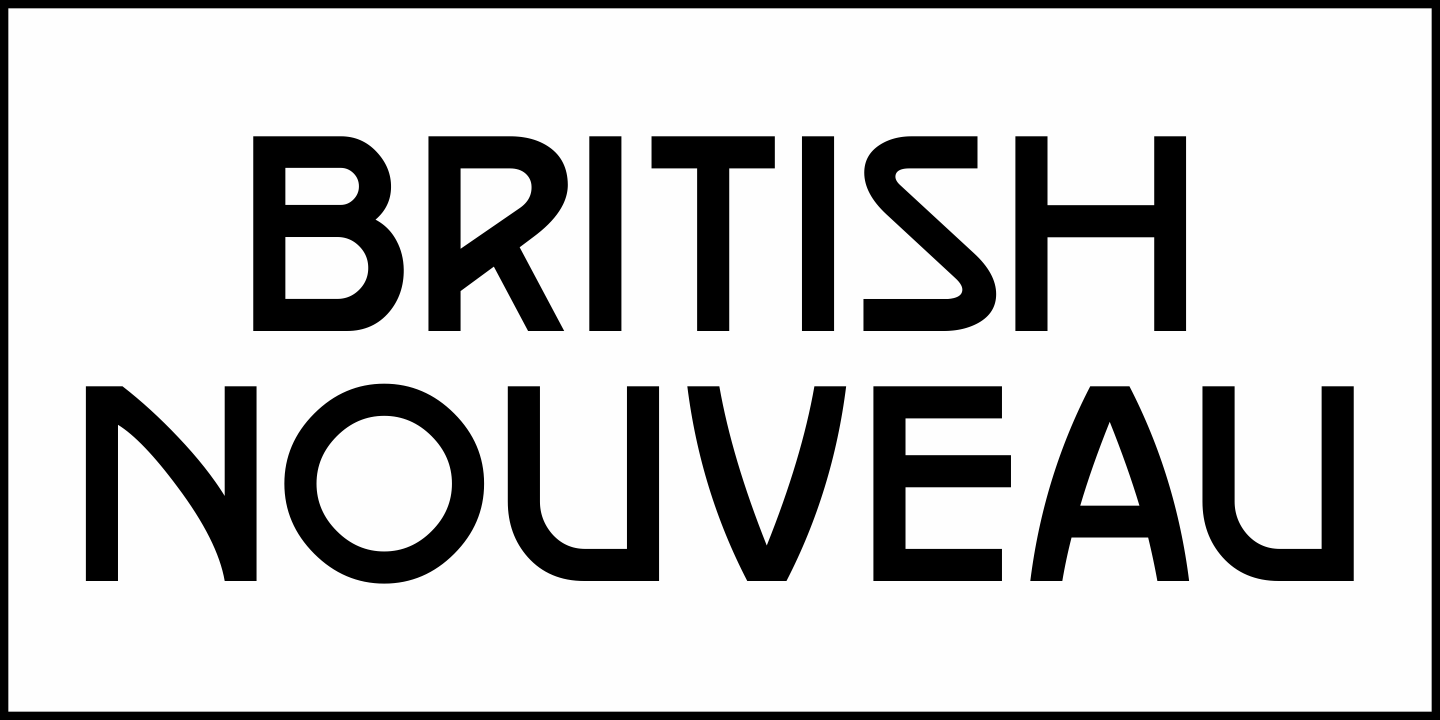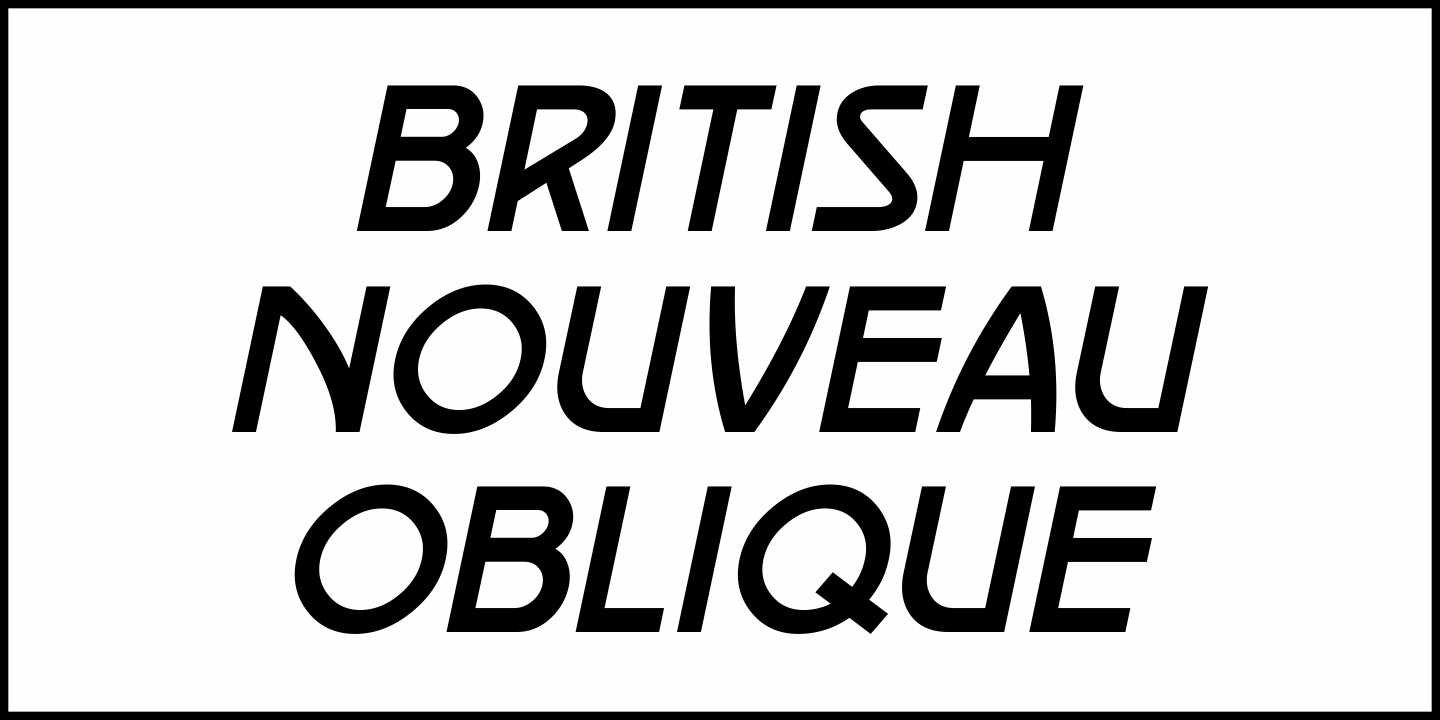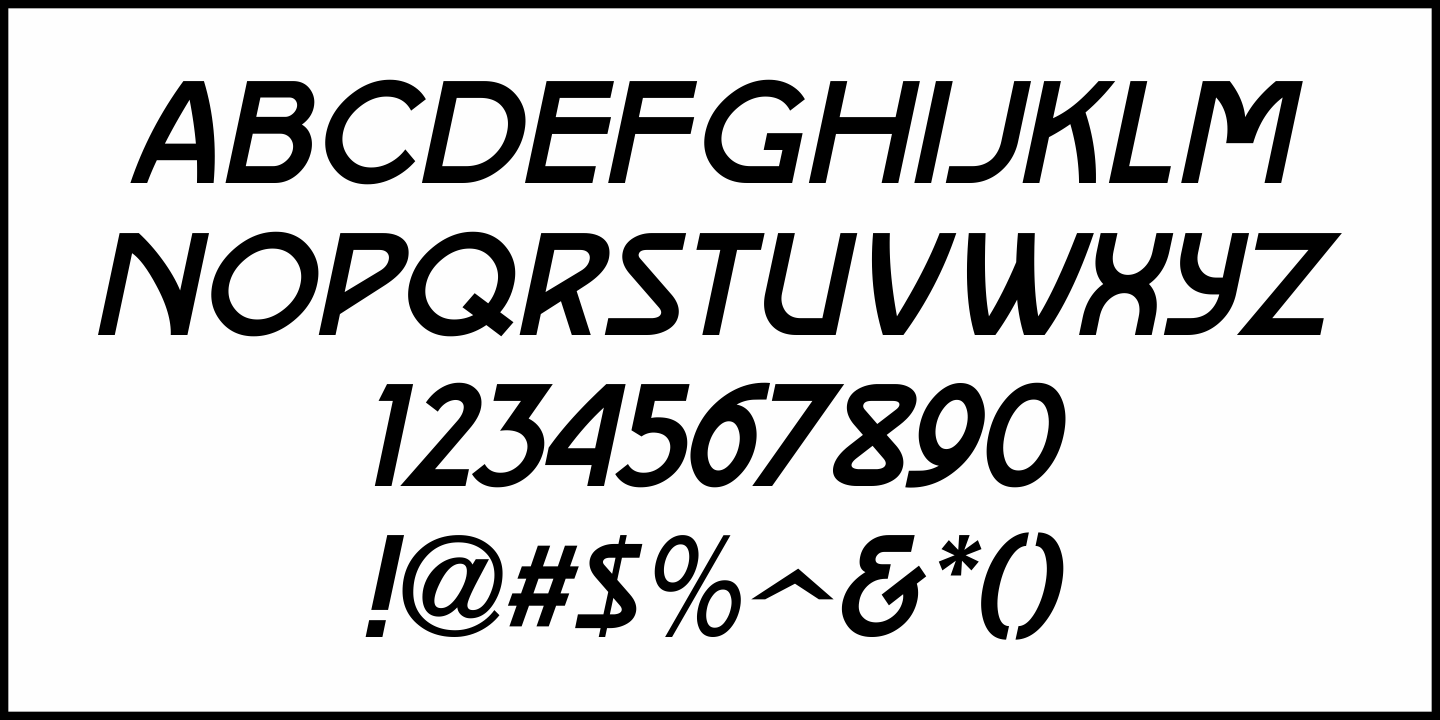
British Nouveau
A pleasant Art Nouveau sans serif type design called "Bohemian" was offered by the British type foundry Miller and Richard (circa 1921).
This design served as the model for British Nouveau JNL, which is available in both regular and oblique versions.
British Nouveau Regular by Jeff Levine Fonts